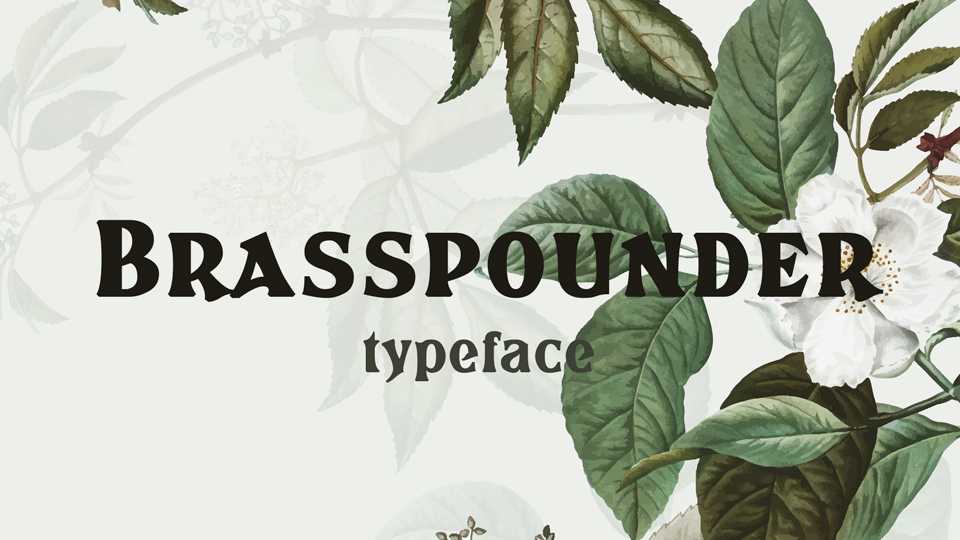
Download Brasspounder font, a fancy vintage typeface that has freakishly diminutive capitals. Brasspounder looks amazing for logos and branding, posters, retro projects and more.